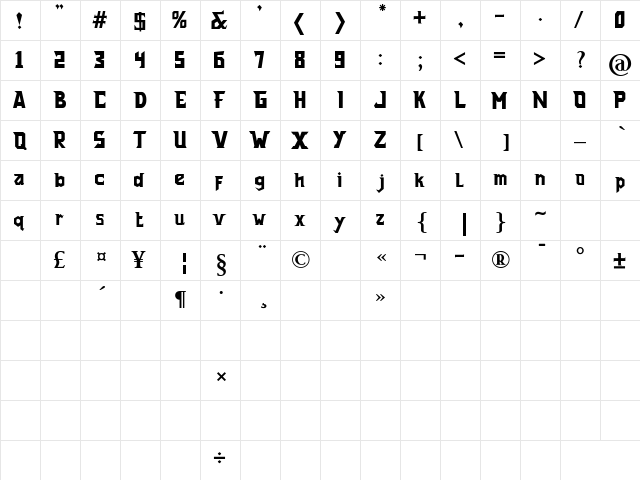
Forgotten Regular Font Preview
Forgotten Regular
Forgotten Regular Font Details
Design Context for Forgotten Typeface
Forgotten is a composed and adaptable typeface that performs quietly and consistently across a wide range of design contexts.